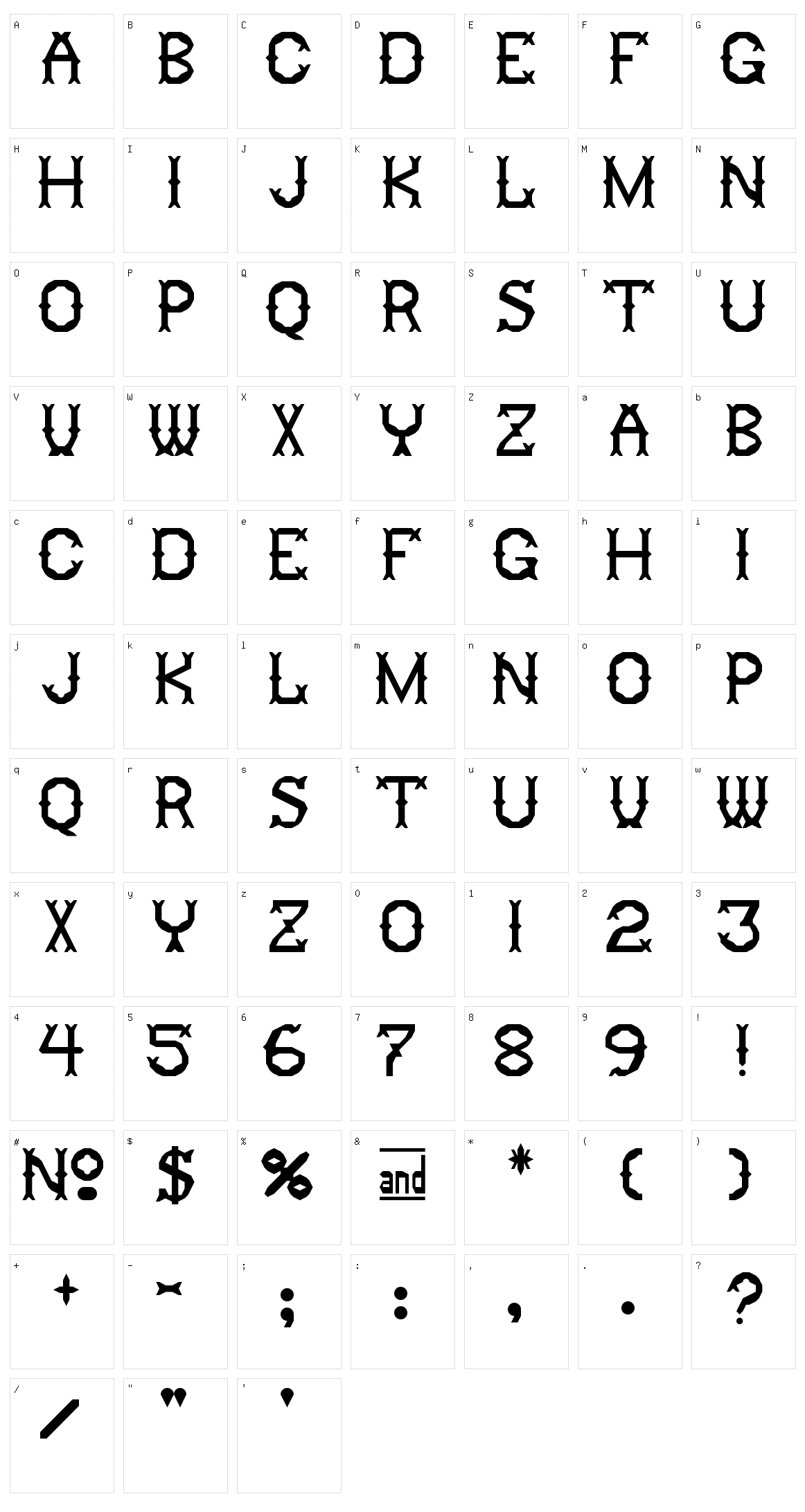
The free font Ringling is carefully designed by James Vipond, showcasing a thoughtful balance of creativity and usability and falls under the Western font style. When you download the ZIP file, it contains only 6.74 KB of font files, making it lightweight and quick to download. Please review the license details below to understand permitted usage and distribution rights. If license information is not available, we recommend using this font for personal projects only or contacting the author directly for commercial usage permissions.
The FontStruction âRinglingâ